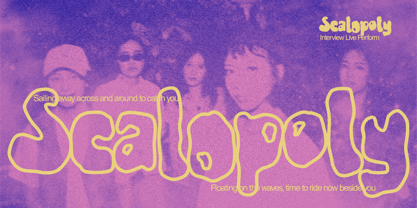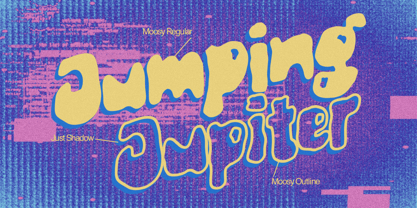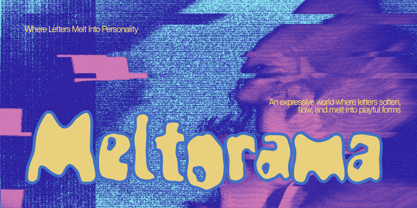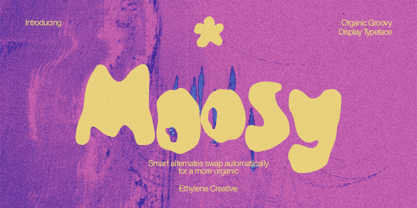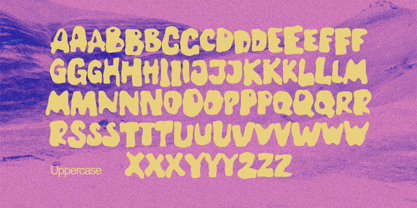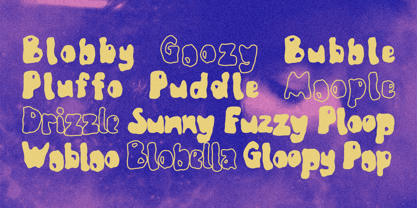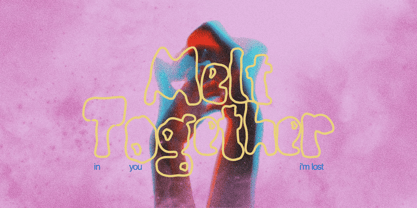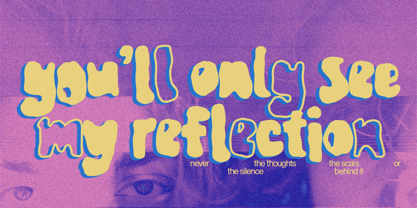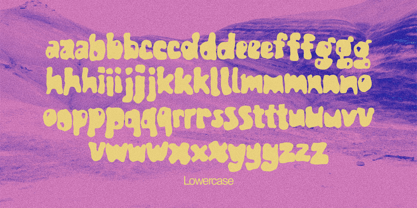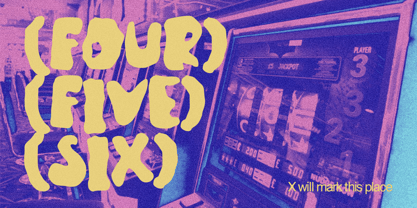
Moosy
by Ethylene
The Moosy Font Family was designed by Dicky Fuadi and published by Ethylene. Moosy contains 2 styles and family package options. More about this family
Moosy is a groovy display font that celebrates imperfection in the most charming way. Inspired by melting shapes, organic forms, and playful 70s aesthetics, every letter flows with soft curves and uneven contours that feel naturally hand-crafted. The result is a typeface that's warm, expressive, and full of personality.
Designed with creativity in mind, Moosy includes smart Contextual Alternates that automatically substitute repeated characters with alternate glyphs. This creates a more natural, less repetitive appearance without requiring manual adjustments—perfect for achieving an authentic handmade look.
Whether you're creating bold branding, retro-inspired artwork, or cheerful packaging, Moosy delivers a friendly visual voice that instantly grabs attention.
The built-in Contextual Alternates make repeated letters automatically switch to alternate versions, creating smooth, organic typography that feels truly hand-drawn. Simply type and let the font do the work.
Designers: Dicky Fuadi
Foundry: Ethylene